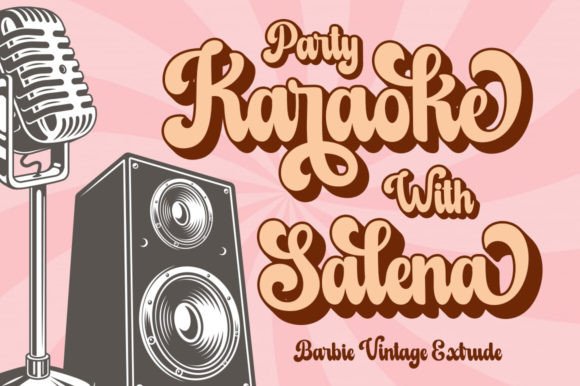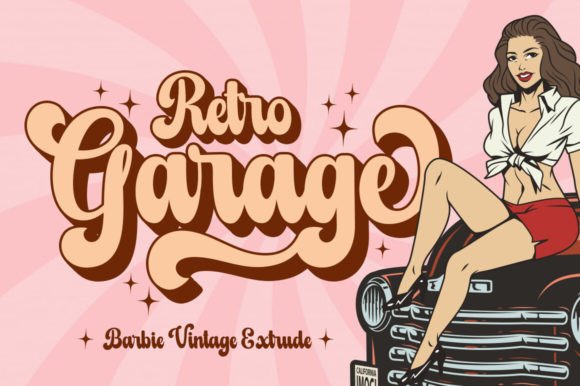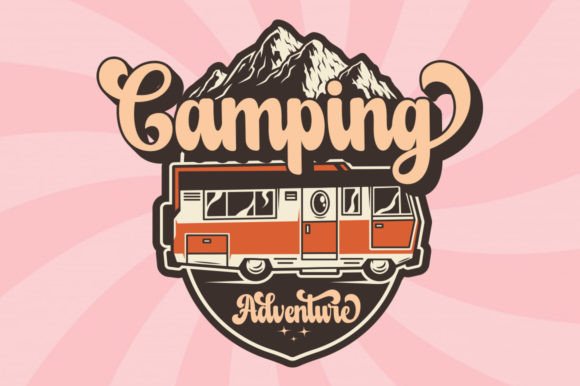
Introduction to Barbie Vintage Extrude Font
Barbie Vintage Extrude is playfully nostalgic and delivers an incredible display font.
Use this display font to add that special retro touch to any design idea you can think of Masterfully designed to become a true favorite, this font has the potential to bring each of your creative ideas to the highest level.
Why Choose Barbie Vintage Extrude Font?
Barbie Vintage Extrude Font offers exceptional quality and versatility, making it a valuable addition to your design toolkit. Whether you’re creating for personal projects or commercial use, Barbie Vintage Extrude Font delivers professional results.